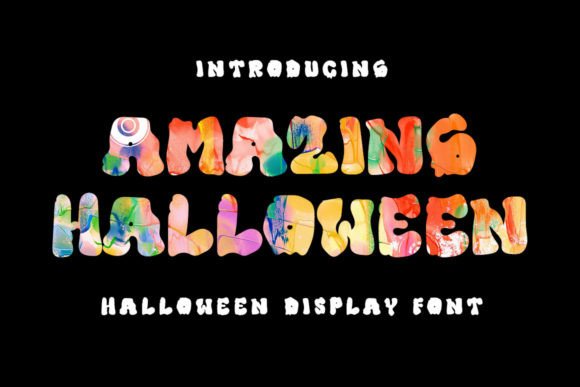
Amazing Halloween Font: The Perfect Addition to Your Spooky Designs
Halloween is just around the corner, and with it comes the need for spooky and creative designs. Whether you’re a graphic designer, a DIY enthusiast, or a business owner looking to create a Halloween-themed campaign, having the right font is essential. That’s where the Amazing Halloween Font comes in – a quirky and slightly scary display font that’s perfect for all your Halloween designs.
What is Amazing Halloween Font?
Amazing Halloween Font is a unique and eye-catching display font that’s specifically designed for Halloween-themed designs. This font is whimsical with a touch of spookiness, making it perfect for creating eye-catching posters, flyers, and social media graphics.
The font features a distinctive and quirky design, with bold lines, irregular shapes, and a hint of eeriness. It’s the perfect combination of fun and spooky, making it suitable for a wide range of Halloween designs, from invitations and party decorations to social media graphics and website headers.
Key Features of Amazing Halloween Font
- Quirky and Spooky Design: The font features a unique and quirky design that’s perfect for creating spooky and eye-catching Halloween designs.
- Display Font: Amazing Halloween Font is a display font, making it perfect for headlines, titles, and short phrases.
- Easy to Read: Despite its quirky design, the font is easy to read, even in large and small sizes.
- Versatile: The font can be used for a wide range of Halloween designs, from invitations and party decorations to social media graphics and website headers.
How to Use Amazing Halloween Font
- Pair it with Other Fonts: Pair Amazing Halloween Font with other fonts to create a unique and eye-catching design. You can use a sans-serif font for body text and Amazing Halloween Font for headlines.
- Use it for Headlines: Use Amazing Halloween Font for headlines, titles, and short phrases to add a touch of spookiness to your design.
- Experiment with Colors: Experiment with different colors to create a unique and eye-catching design. You can use orange, black, and purple to create a spooky and festive atmosphere.
Benefits of Using Amazing Halloween Font
Using Amazing Halloween Font can bring several benefits to your Halloween designs. Here are a few:
- Stand Out from the Crowd: Amazing Halloween Font is unique and eye-catching, making it perfect for creating designs that stand out from the crowd.
- Professional Look: Amazing Halloween Font has a professional look, making it perfect for businesses and organizations looking to create a Halloween-themed campaign.
Amazing Halloween Font is a quirky and slightly scary display font that’s perfect for all your Halloween designs. With its unique and eye-catching design, this font is sure to add a touch of spookiness to your posters, flyers, social media graphics, and website headers.
Whether you’re a graphic designer, a DIY enthusiast, or a business owner looking to create a Halloween-themed campaign, Amazing Halloween Font is the perfect addition to your design toolkit.
- What is Amazing Halloween Font?: Amazing Halloween Font is a quirky and slightly scary display font that’s specifically designed for Halloween-themed designs.